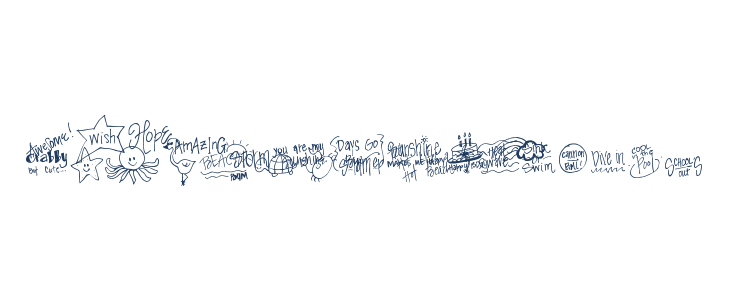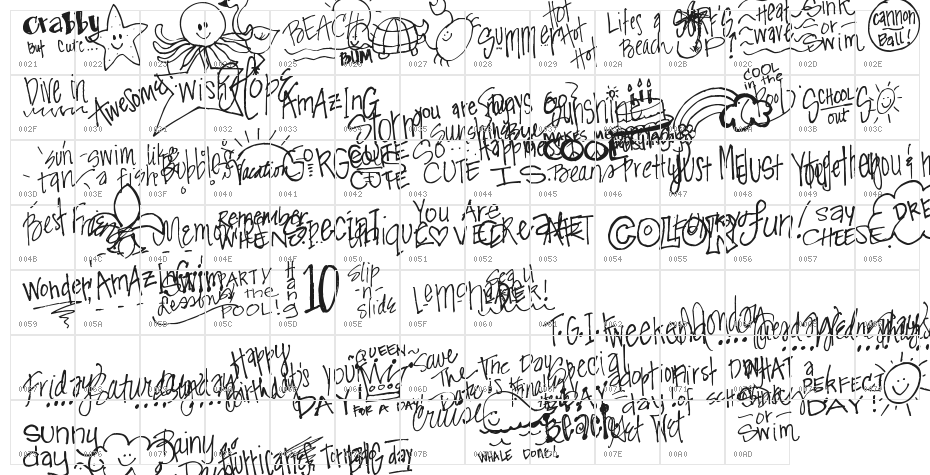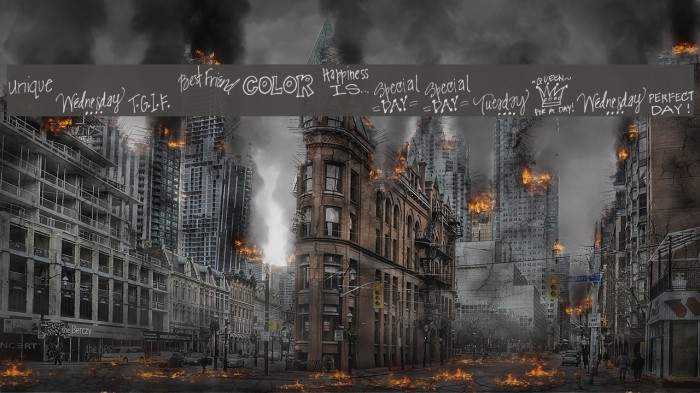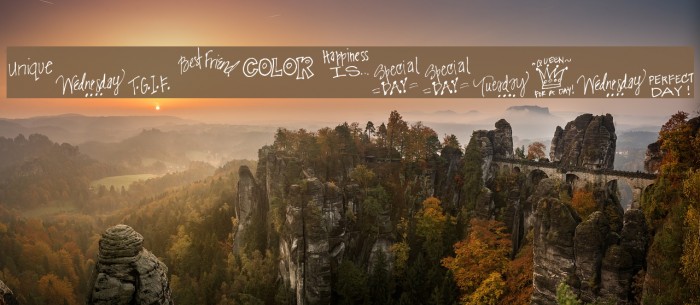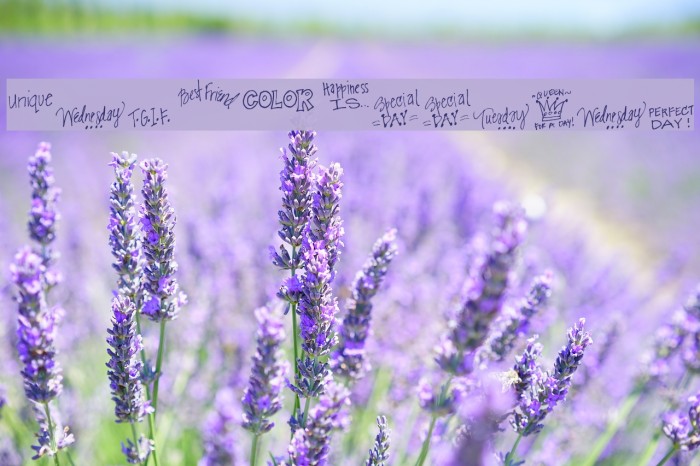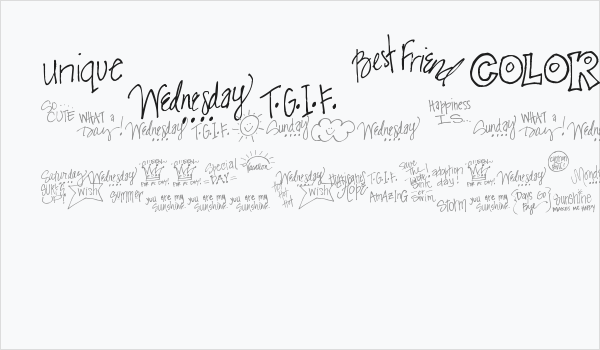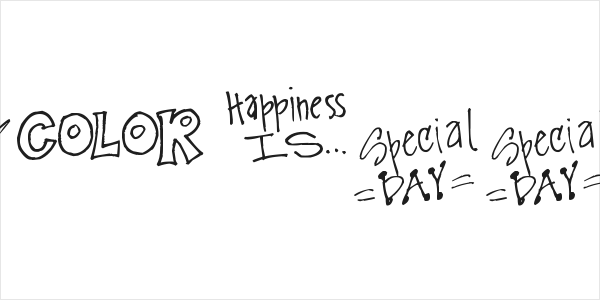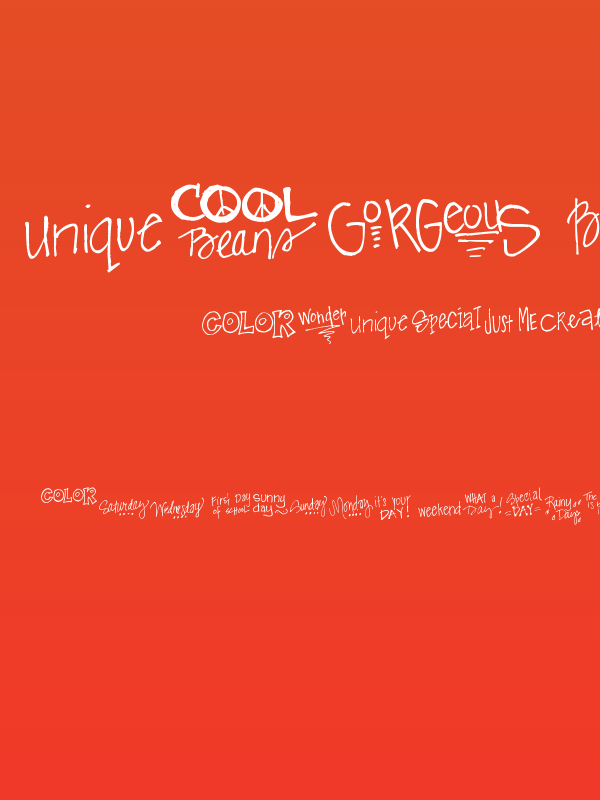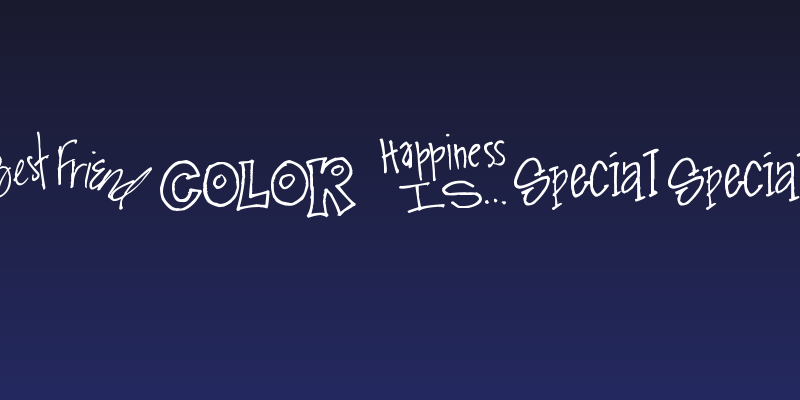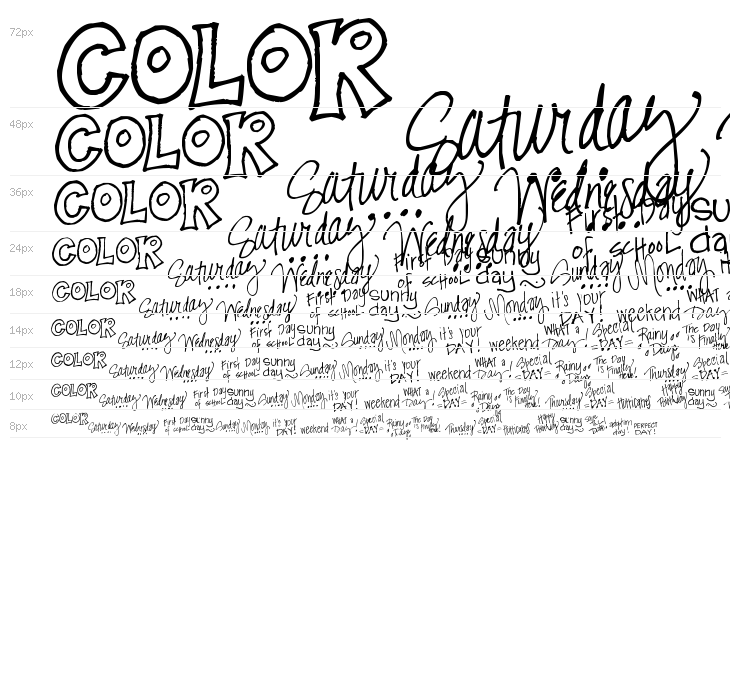
Pea KT Doodles Font
Pea KT Doodles Description
This playful and whimsical font is characterized by its hand-drawn, doodle-like appearance. Each character is unique, with varying line thicknesses and quirky embellishments that give it a lively and informal feel. The letters are creatively styled, often incorporating small illustrations or decorative elements that enhance their charm. The font exudes a sense of fun and creativity, making it ideal for projects that require a personal and artistic touch. Its irregular baseline and varied character sizes contribute to its casual and spontaneous look, reminiscent of handwritten notes or sketches.
| Proposed Projects | Ideal for greeting cards, children's books, playful branding, or any project needing a creative and informal touch. |